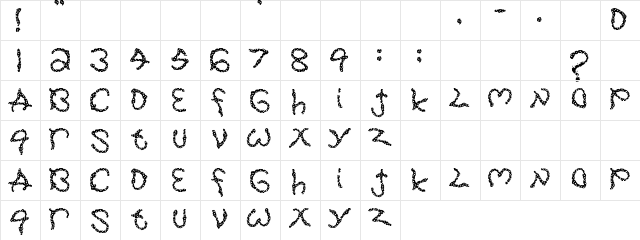
Bugs Regular
Design Context for Bugs Typeface
Bugs is a composed and adaptable typeface that performs quietly and consistently across a wide range of design contexts.